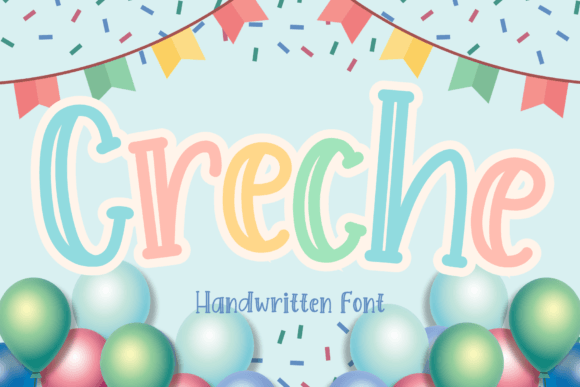
When Handwritten Charm Meets Design
Have you ever been scrolling through social media and stumbled upon a post that instantly catches your eye? Maybe it’s the playful font, the vibrant colors, or the overall aesthetic that makes you feel like you’re looking at something truly special. For designers, that magical moment is what makes our job so rewarding – and it’s exactly what the Creche Font aims to deliver.
This delightful handwritten font is more than just a pretty face; it’s a reflection of your personality and style. Perfect for adding a touch of whimsy to your designs, Creche Font is the ultimate choice for creatives looking to add a personal touch to their work. From logos to invitations, planners to photo albums, this font is sure to bring a smile to your audience’s faces.
Creche Font Key Features
- Unique Character Set: Creche Font features a unique set of characters, including multiple language support and a wide range of glyphs.
- Language Support: Creche Font supports multiple languages, including Latin, Cyrillic, and Greek scripts, making it a versatile font choice for global designs.
- Font Style: Creche Font features a bold and playful style, making it ideal for use in titles, headings, and other design elements where a strong visual impact is desired.
Creche Font Review
Overall, I was quite impressed with the Creche Font upon initial use. The ✨ elegant lines and ✨ fluid curves evoke a sense of whimsy and sophistication.
- ✨ Elegant lines that give the font a unique touch.
- ✨ Fluid curves that make it suitable for both formal and informal content.
- Good legibility, even at smaller font sizes.
- ⚠️ Limited character set may cause issues for non-English content.
- ⚠️ Not suitable for highly technical content, as some characters may be difficult to read.
While the Creche Font has its limitations, I believe it’s a great choice for creative projects or branding that needs a unique touch. However, it may not be the best fit for projects that require a high level of technical accuracy or extensive non-English content.
Tips for Getting the Most Out of Creche Font
Here are some tips to help you get the most out of Creche Font:
- Use Creche Font for headings and titles to add a touch of elegance.
- Pair Creche Font with other fonts for a unique and creative look.
- Experiment with different font sizes and styles to achieve the desired effect.
Here are some common use cases for Creche Font:
Alternatives to Creche Font for Designers
Montserrat is a modern and sleek sans-serif font that is perfect for creating a clean and minimalist atmosphere. It is ideal for use in body text, headings, and titles. Montserrat is a more geometric and modern alternative to Creche Font, with a more urban and edgy feel.
Exploring Creche Font
Project 1: Whimsical Nursery Sign
Create a unique and playful nursery sign using Creche Font. This project combines a touch of whimsy with a touch of elegance, making it perfect for a baby’s nursery.